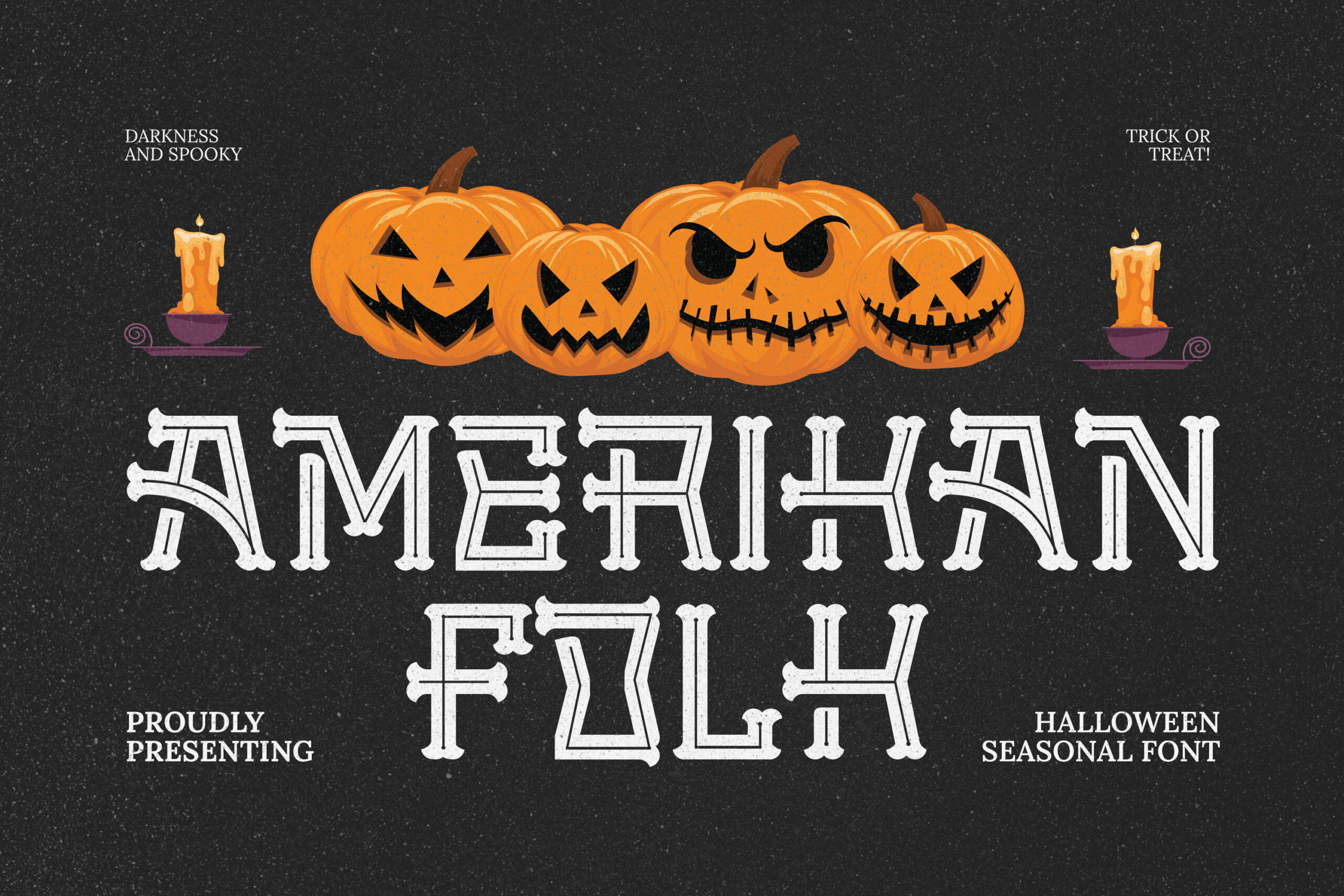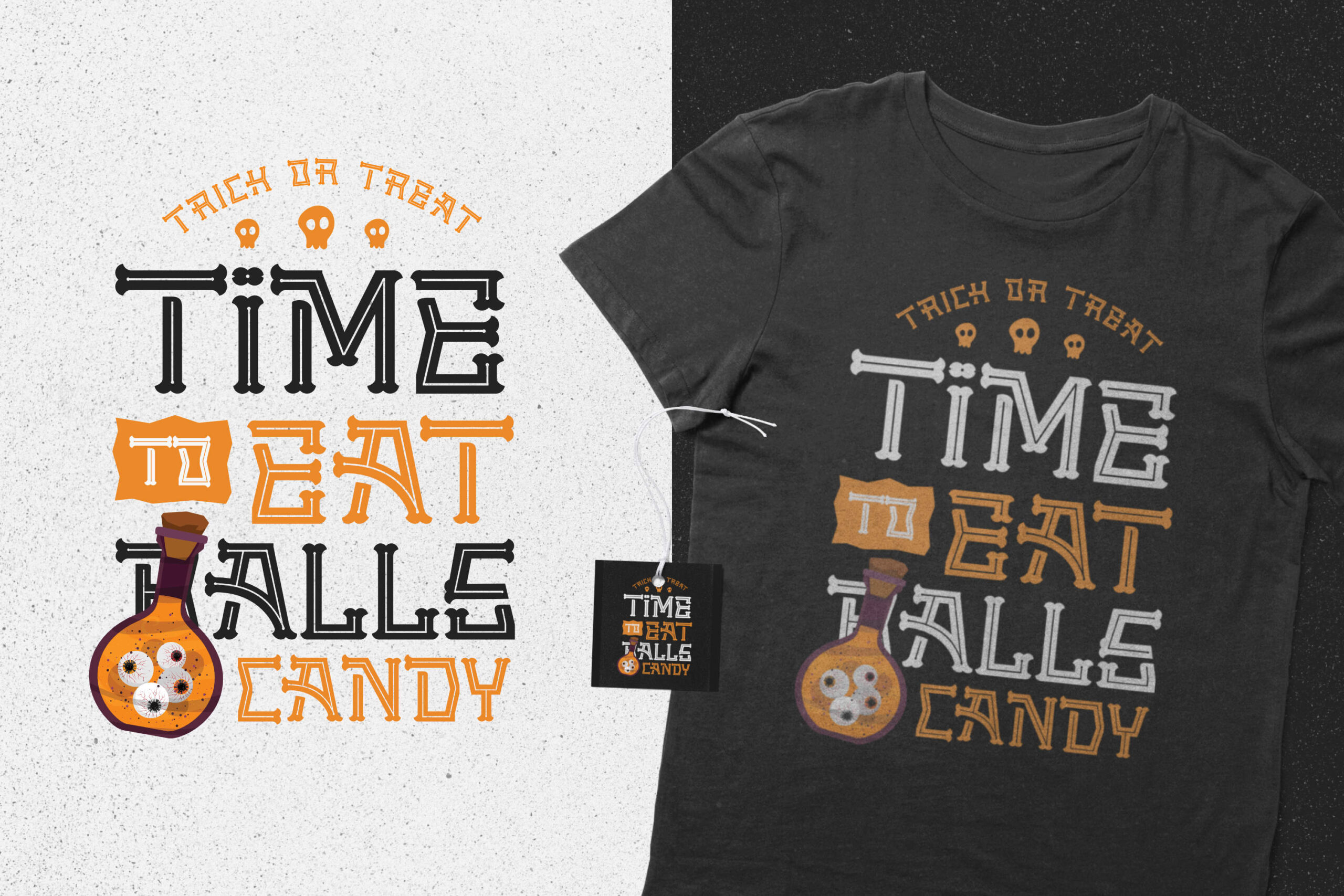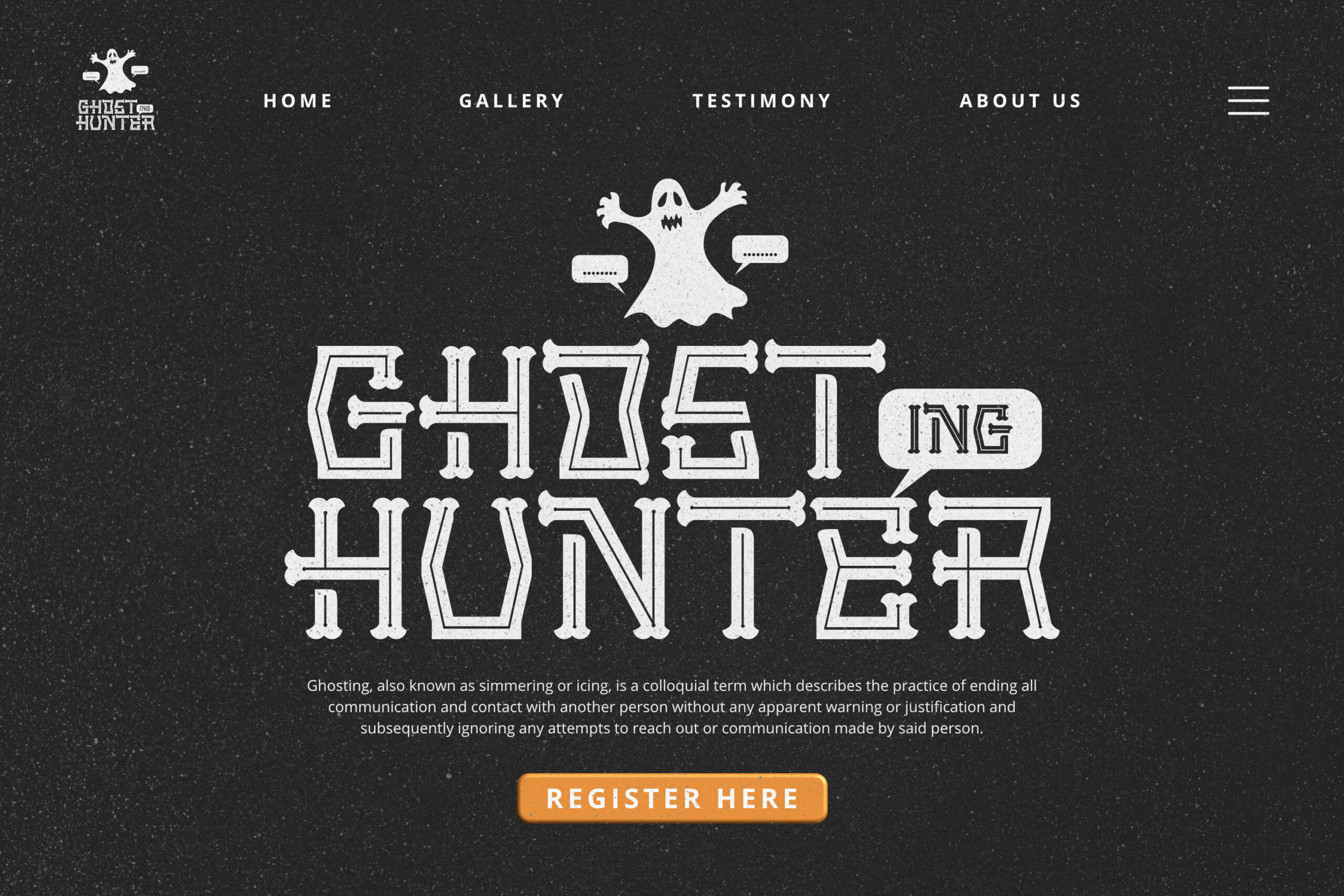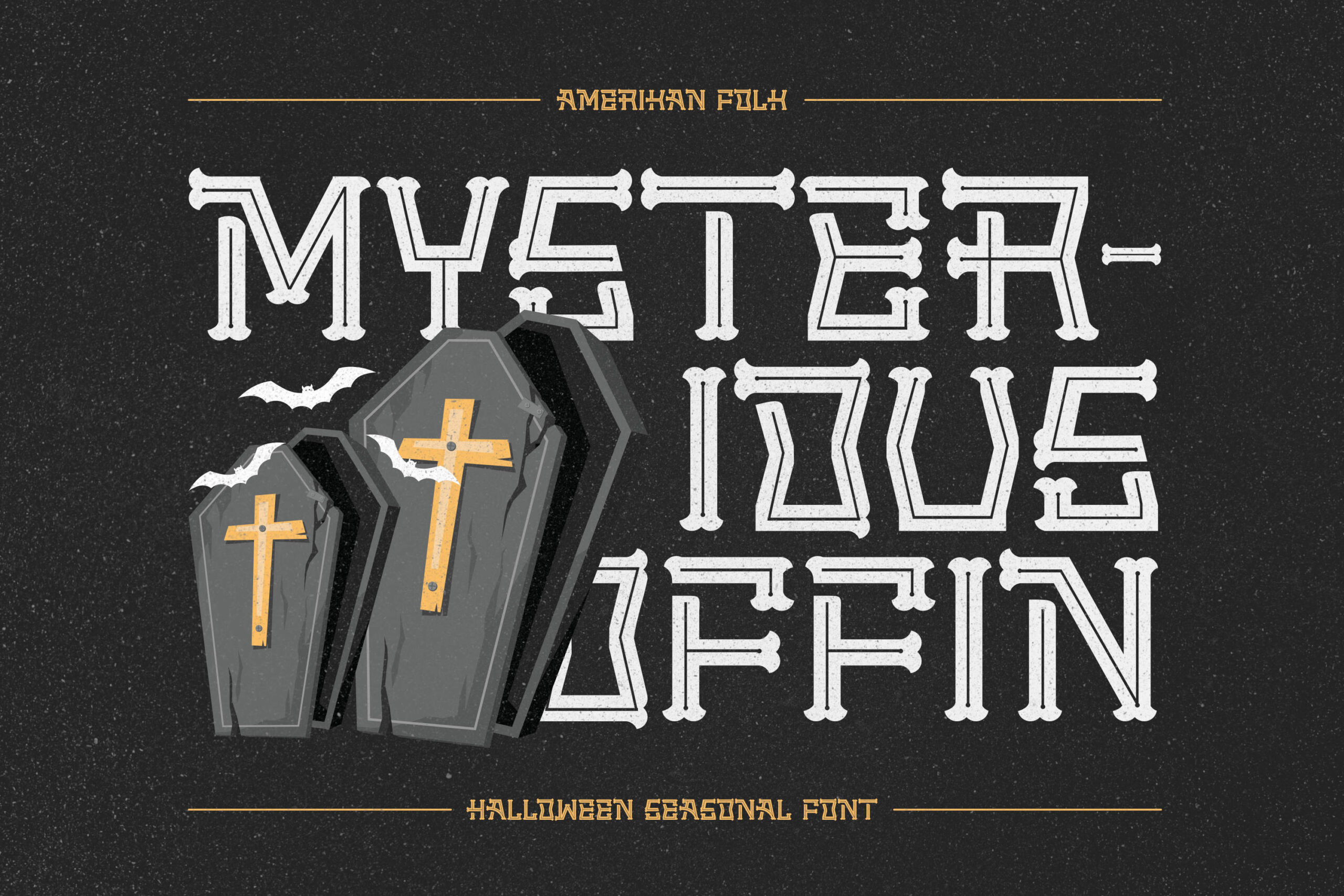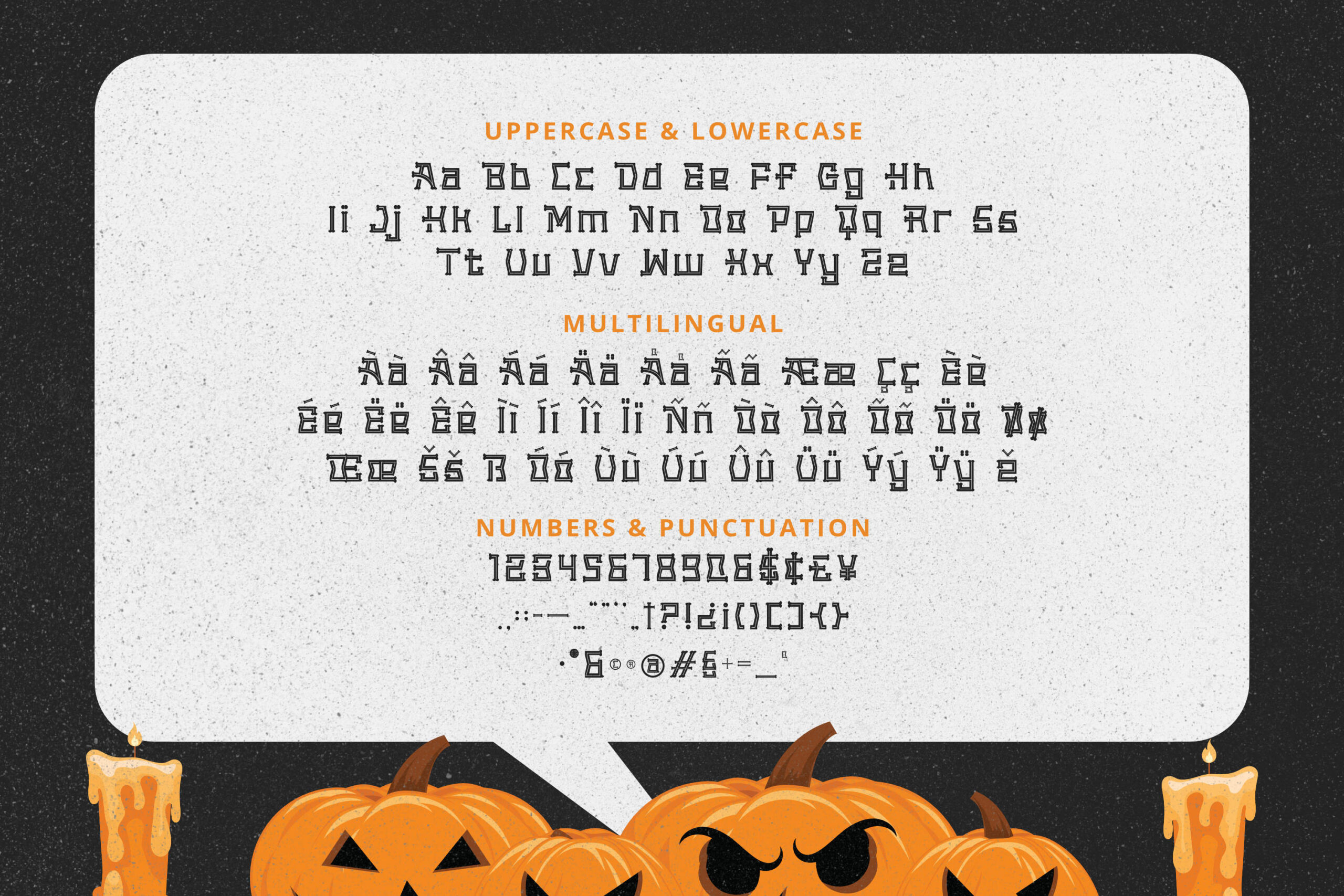
Amerikan Folk is a bold and decorative Halloween font designed with quirky bone-shaped details that bring a spooky twist to any project. With strong seasonal vibes, it captures the essence of frightful fun, perfect for posters, merchandise, and themed branding. Its unique skeletal style creates visual interest and works brilliantly in both digital and print designs.
This display font includes uppercase, lowercase, numbers, punctuation, and multilingual support, allowing it to be used in a variety of creative applications. Whether you’re crafting eerie invitations, apparel prints, or haunted web headers, Amerikan Folk delivers a playful horror aesthetic that stands out in seasonal projects.
Amerikan Folk